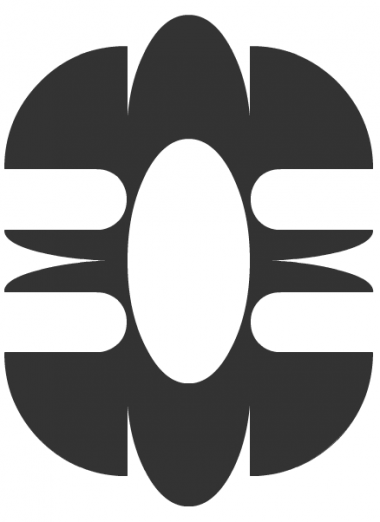
Blue Saloon
Wild West
Congratulations! FontStruct Staff have deemed your FontStruction worthy of special mention. “ Blue Saloon” is now a Top Pick.
Yehaaaa! Nice work.
Congrats on the TP, it is a great 'fun' design.
Super!
Very stylish. 10/10
WOW I love this design
Beautiful, comme d'habitude!
REALLY CRAZY!!